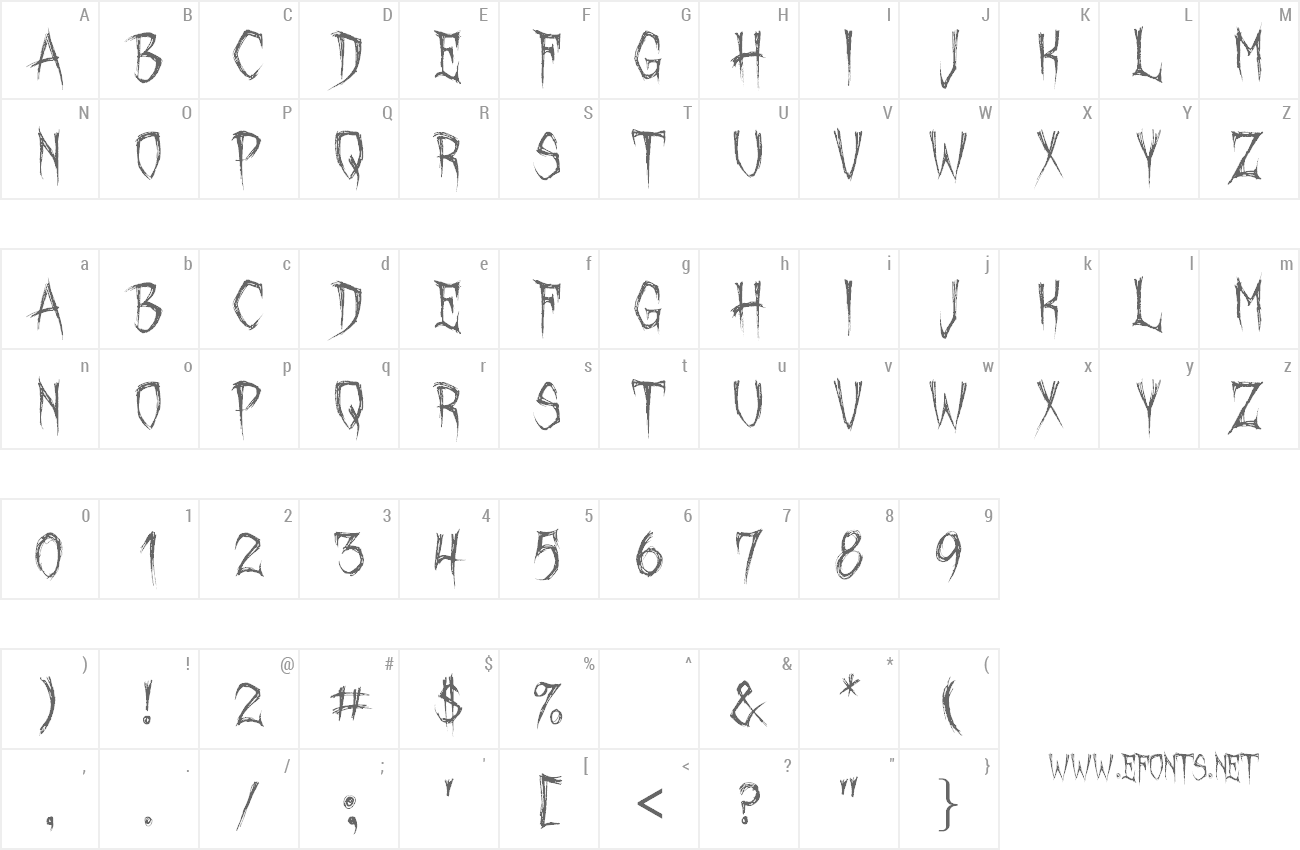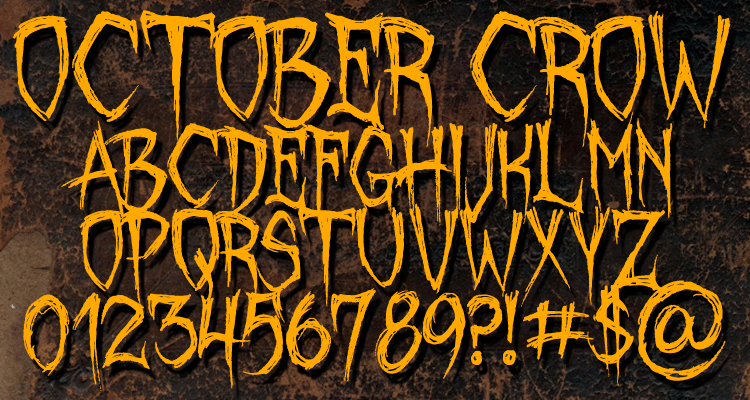
| Font name: | October Crow |
| Author: | Sinister Fonts |
| Note by Sinister Fonts | |
| Created 2010, hand-lettered while watching The Crow on Devil's Night 2010. Turned into a PC font on Halloween, 2010. |